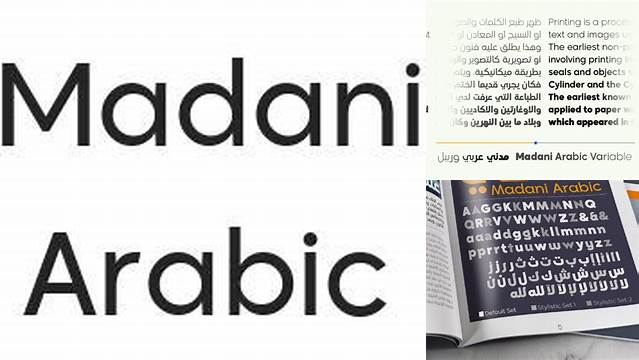
1. What is Madani Arabic Regular Font?
Madani Arabic is a contemporary font known for its clarity and readability. It's designed to be versatile, working well in both digital and print media. Its clean lines and balanced letterforms make it a popular choice for various design projects, from websites and apps to books and posters. The regular weight offers a solid foundation for body text and headlines alike, providing a consistent and professional look. What sets Madani Arabic regular font apart is its ability to maintain a modern feel while respecting traditional Arabic calligraphic principles. This makes it a superb option for projects needing a touch of authenticity with a contemporary twist.
2. The Appeal of Madani Arabic for Designers
Designers love Madani Arabic regular font because it’s incredibly versatile. Whether you’re working on a website, a mobile app, or print materials, this font can adapt to your needs. Its readability is top-notch, ensuring that your message comes across clearly. Plus, its modern aesthetic gives any project a fresh and polished look. Many designers appreciate that Madani Arabic regular font strikes a balance between traditional Arabic calligraphy and contemporary design, making it perfect for projects that aim to bridge cultural heritage with modern appeal. The clean lines and balanced letterforms also contribute to a professional appearance, which is crucial for branding and marketing materials.